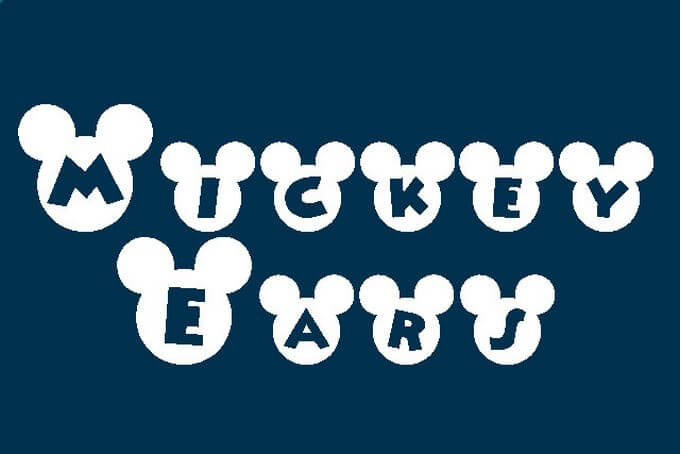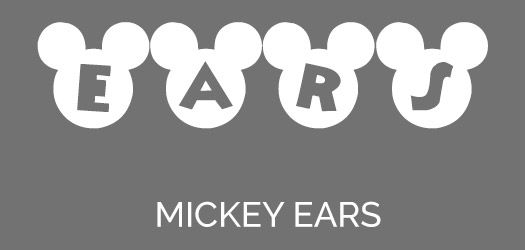
Mickey Ears Font
Mickey Ears Font is one of the famous typefaces of Disney. This typeface is really similar to the mama mouse font and it is available for free. The content material writer creates this font has taken the idea from the luckiest guy further, that the present-day typeface has positioned at the font. Regular with many expert designers, it is giving a top-notch like-minded search for unique operations.
On this conduct, it is going to expose one of the maximum specific typefaces. Mickey Ears Font Free This tremendous pinnacle-notch has are to be had in a common version at the detail of a number of the characters. Having the paper layout like cheri font it has to characteristic the uppercase, punctuation marks. The tasteful typeface can be one of the vital top-notch options you may have ever made because of the truth that many designers are already using it for there an expansion of portraying’s capabilities.